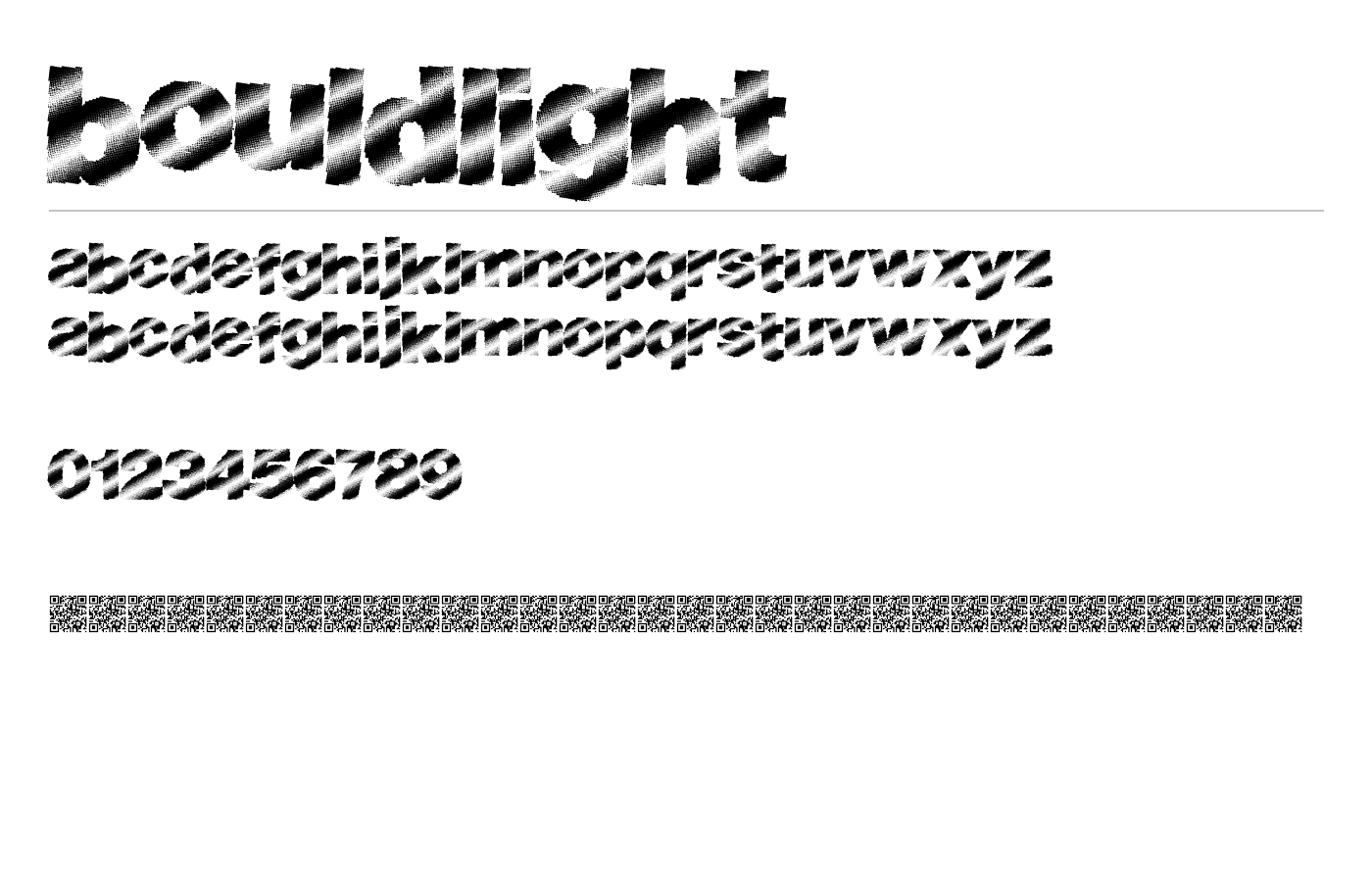
BouldLight is a bold, sans serif display font with a dynamic, textured shadow effect that gives it a sense of movement and depth. Its rounded, geometric letterforms combined with a playful diagonal shading pattern make it perfect for eye-catching headlines, logos, and creative branding that need a modern and energetic vibe. This font works well where you want to stand out with a strong visual impact and a contemporary, artistic touch.
BouldLight Font